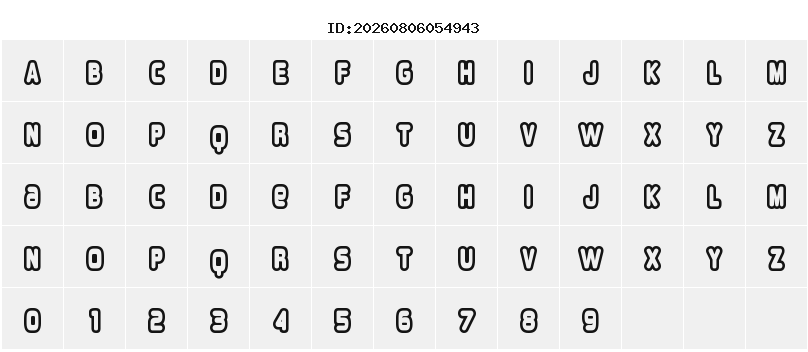
• Font Name: Overload Burn
• Full Font Name: Overload Burn
About Overload Burn.ttf
Overload Burn.ttf is a modern, elegant sans-serif font designed for ultimate readability and visual harmony. Perfect for branding, headlines, web design, and print materials.